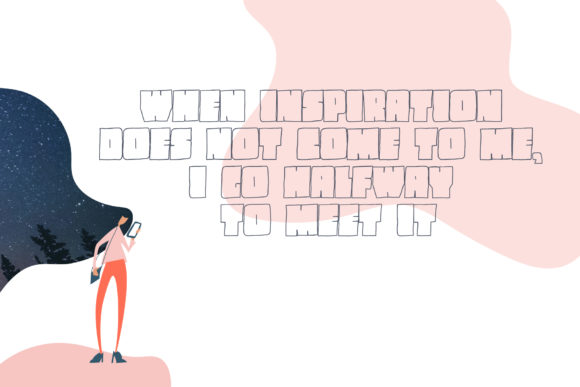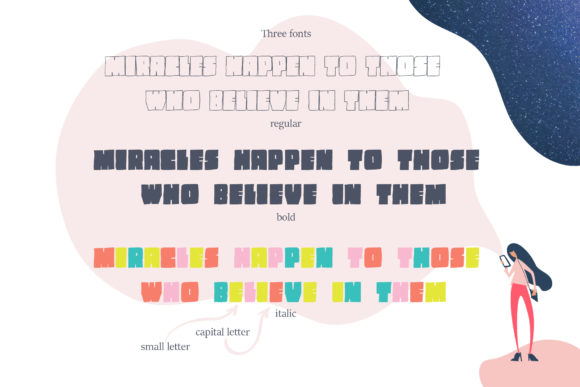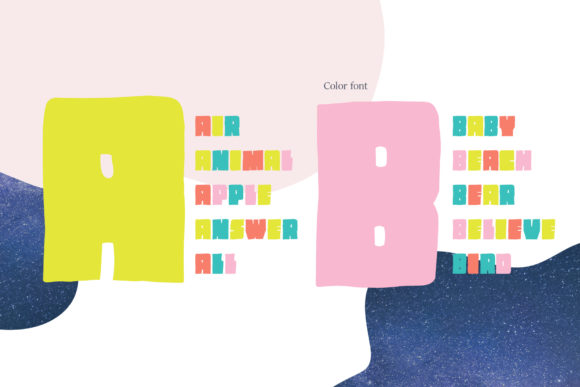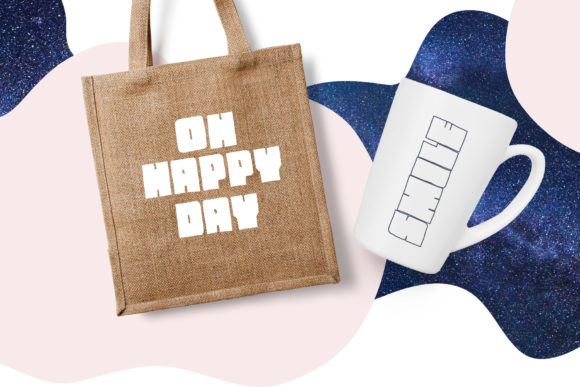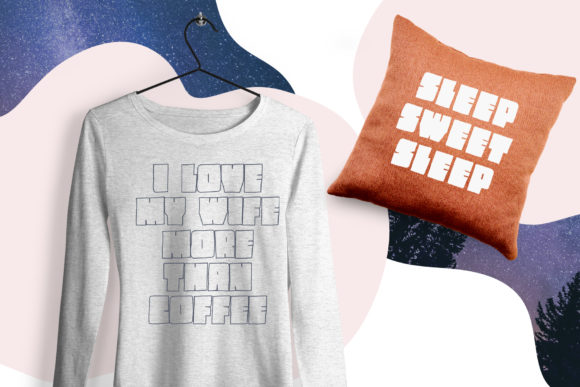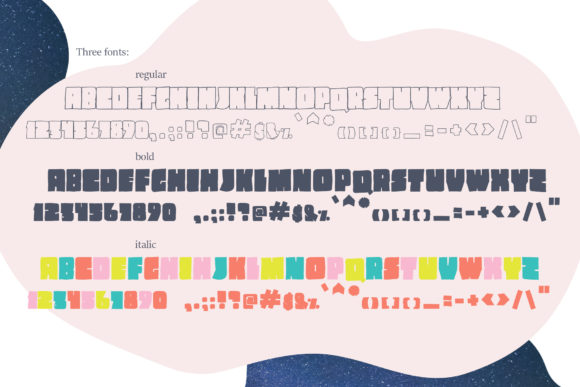
Introduction to Poster Font
As you sit in front of your design software, staring blankly at a blank canvas, the creative spark within you is waiting to be ignited. You’ve got a project in mind, but the right font is missing to bring it to life. That’s where the Poster Font comes in – a striking display font that’s about to revolutionize your design process.
This versatile font family offers three styles: regular, bold, and italic SVG, allowing you to mix and match to create a unique and playful touch that’s perfect for a wide range of creative projects. Whether you’re designing a wedding album, a children’s book, or a gift shop logo, the Poster Font is an invaluable resource that’s sure to elevate your designs to the next level.
Key Features of Poster Font
- High-quality design: This font is designed to deliver crisp, clear text, ideal for use in creative projects that require a professional finish.
- Transparent background: Poster Font’s transparent background makes it easy to overlay text on images or other design elements, adding versatility to your design.
- Large character set: With a wide range of characters, including Latin, Cyrillic, and Greek alphabets, Poster Font is suitable for use in various languages.
- High-resolution design: Poster Font is designed at a high resolution (300 DPI), making it suitable for use in large-scale designs, such as posters and billboards.
- Perfect for creative projects: Whether you’re working on a poster, flyer, or brochure, Poster Font is an excellent choice for designers looking to add a touch of creativity to their work.
Honest Review: Poster Font
As a designer, I’m always on the lookout for high-quality design resources to elevate my creative projects. Recently, I had the chance to try out the Poster Font, and I’m excited to share my honest review with you.
- ✨ The Poster Font has a clean and modern design that’s perfect for creating eye-catching posters and flyers.
- ✨ The font is highly customizable, allowing you to adjust the size, color, and style to fit your design needs.
- ⚠️ The font doesn’t have a transparent background option, which can be a bit restrictive for designers who want to use it on a transparent background.
- ⚠️ The font is only available in a limited number of styles, which may not be suitable for designers who need a more extensive font library.
Overall, I’m impressed with the Poster Font’s quality and versatility. While it has some limitations, it’s still a great resource for designers who want to create high-quality posters and flyers. With a little creativity, you can work around its limitations and achieve amazing results.
Tips for Getting the Most Out of Poster Font
Poster Font is perfect for creative projects such as posters, flyers, and social media graphics. You can also use it to add a touch of elegance to presentations, reports, and documents. With its unique style and high-quality design, Poster Font is a valuable design resource that will elevate your work.
Project 2: Music Festival Poster
Project 3: Retro Arcade Poster